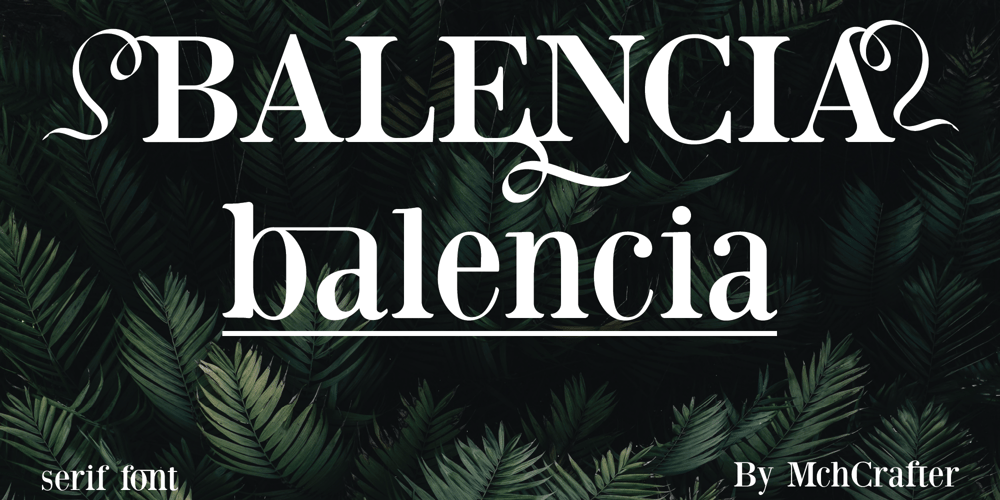
Balencia Font Family was designed by El Mehdi CHOUYOUKH and published by Mchcrafter. Balencia contains 1 styles and family package options. Balencia is an assertive and authentic serif font. It is PUA encoded which means you can access all of the amazing glyphs and ligatures with ease! Add it confidently to your favorite creations and let yourself be amazed by the outcome generated.